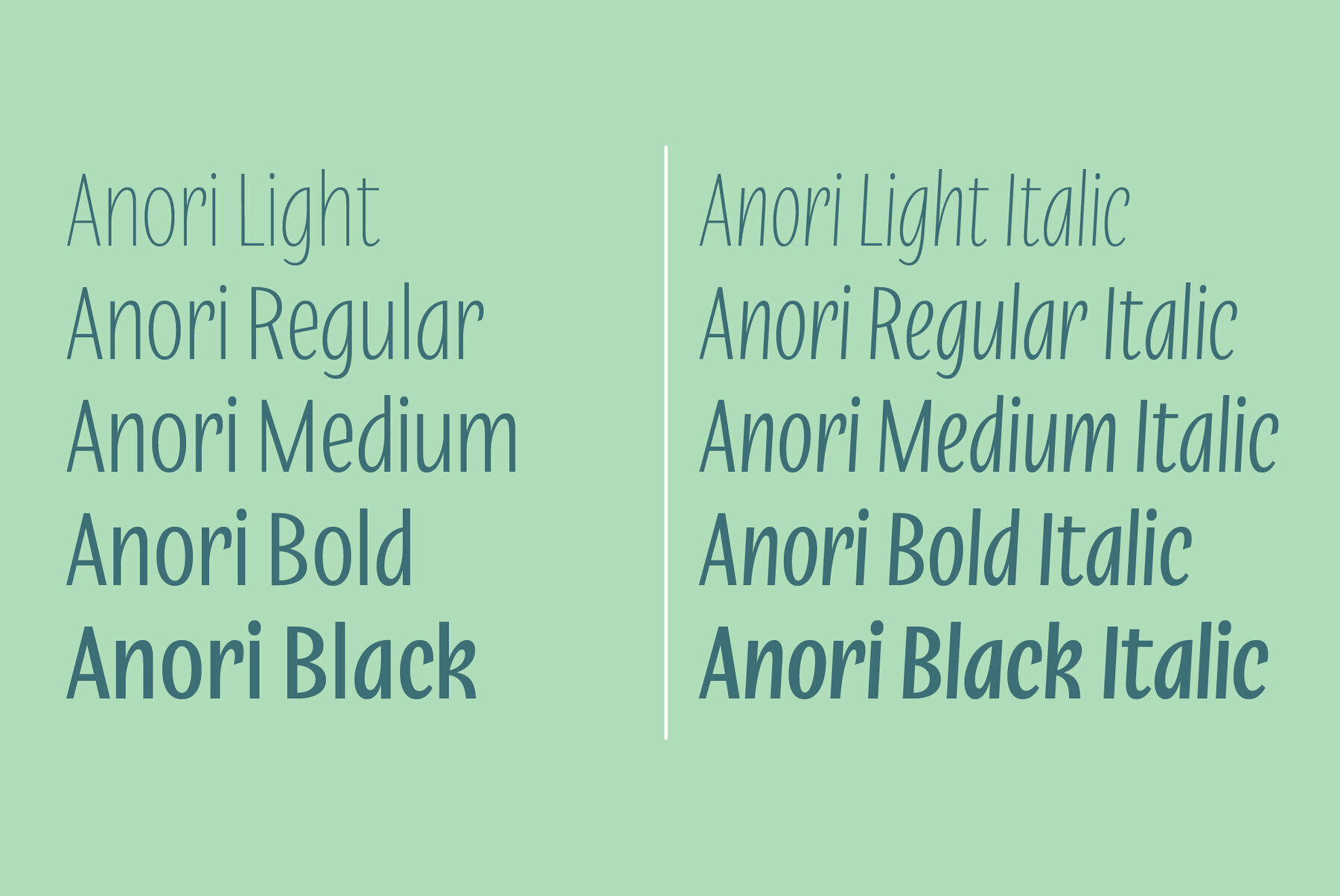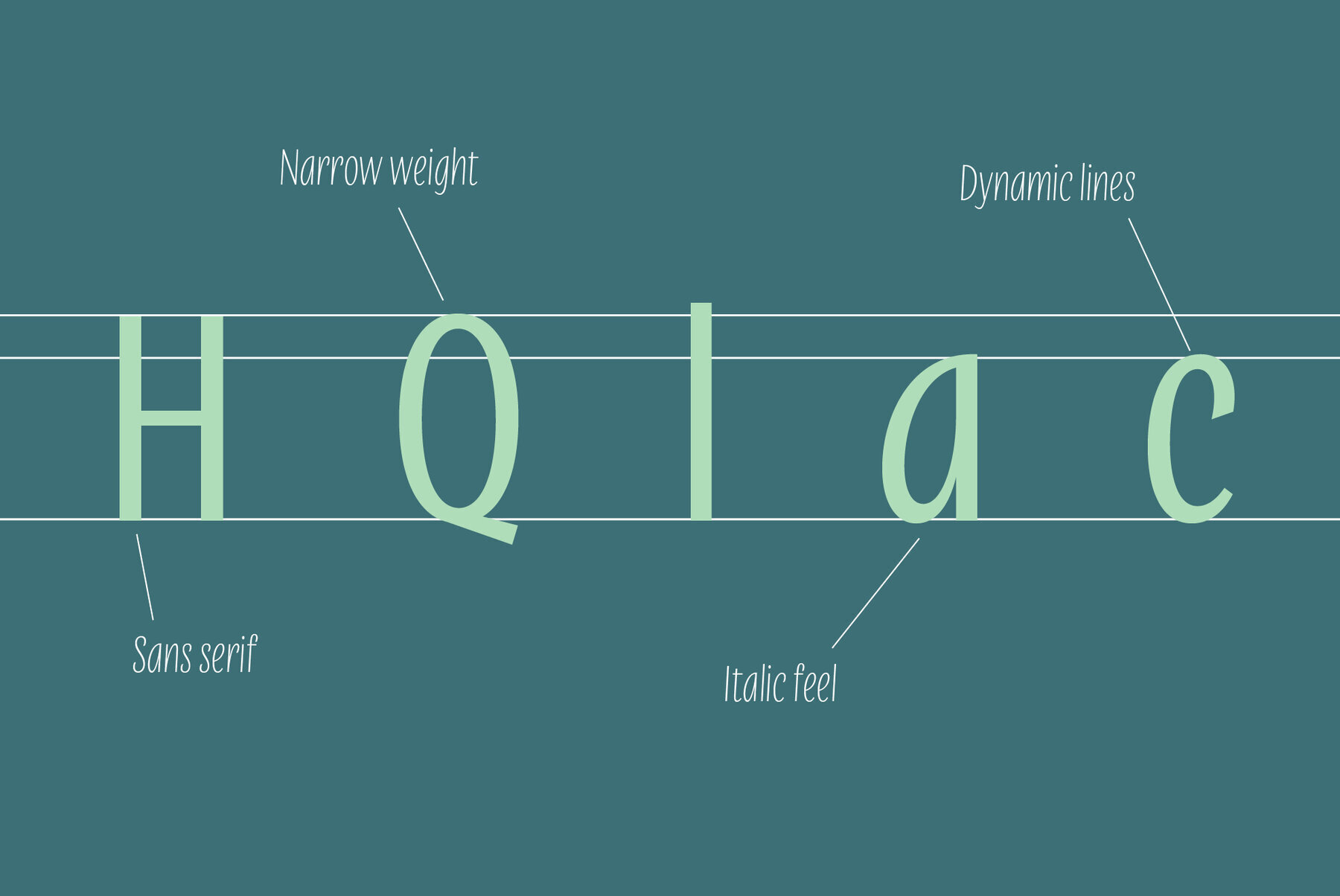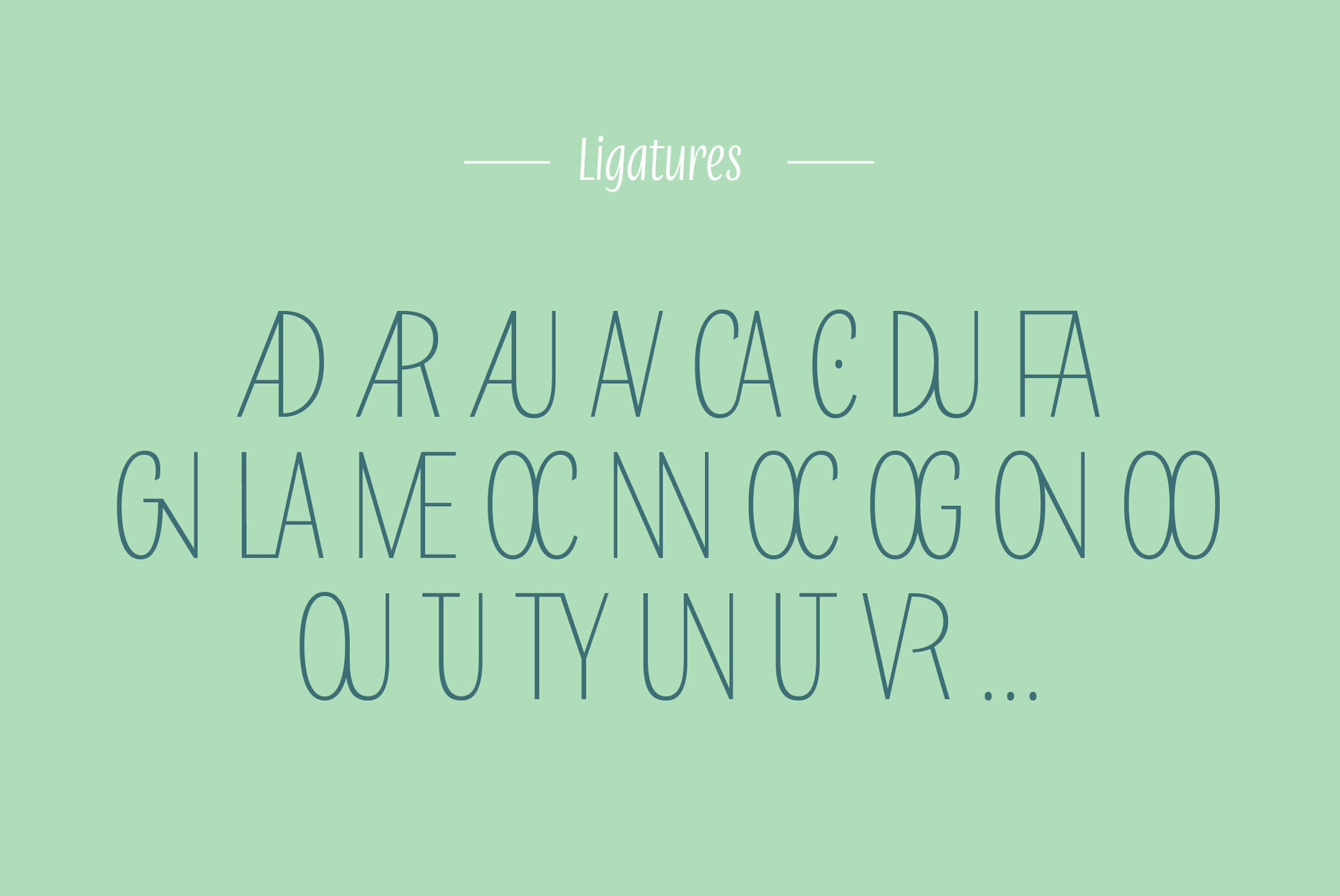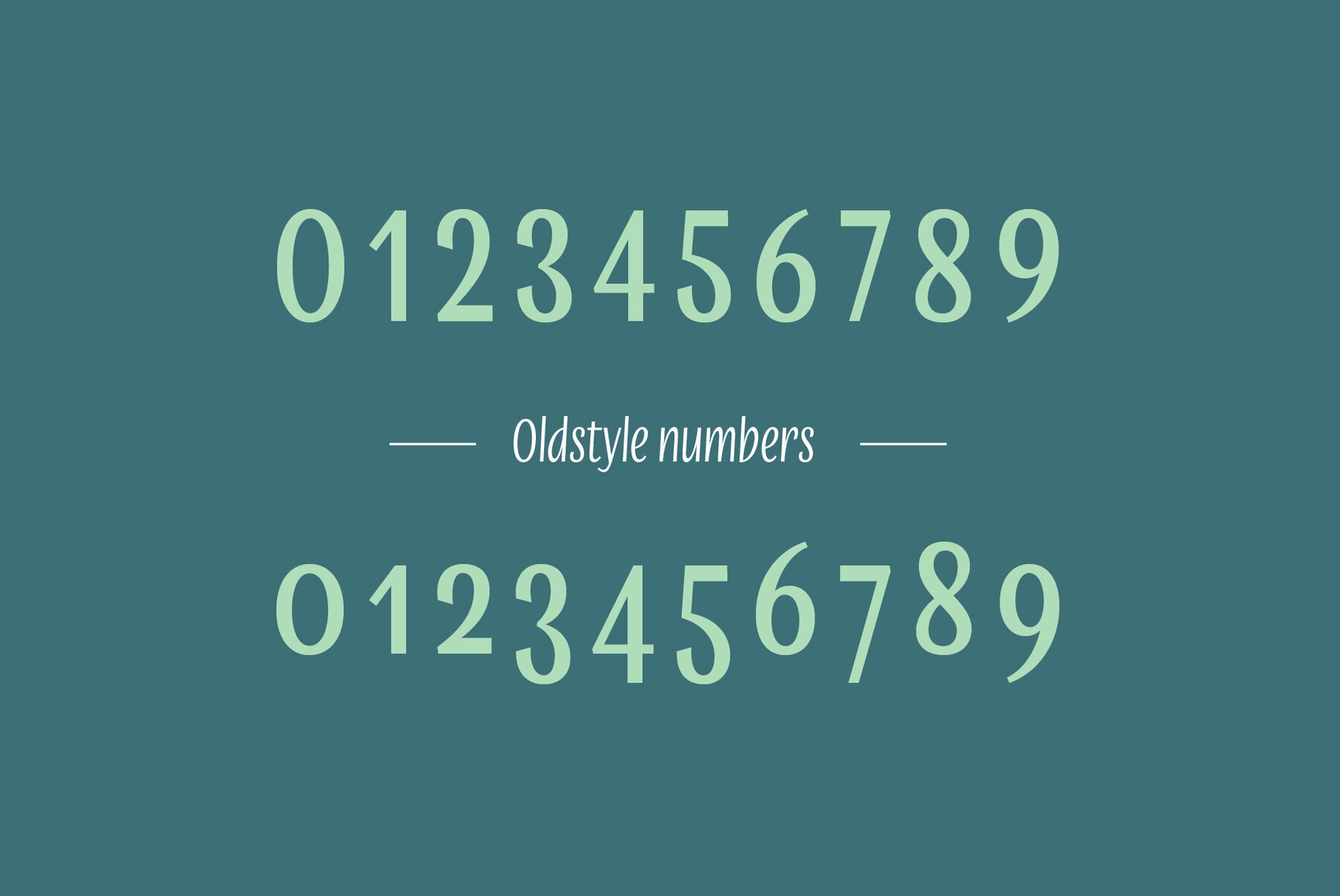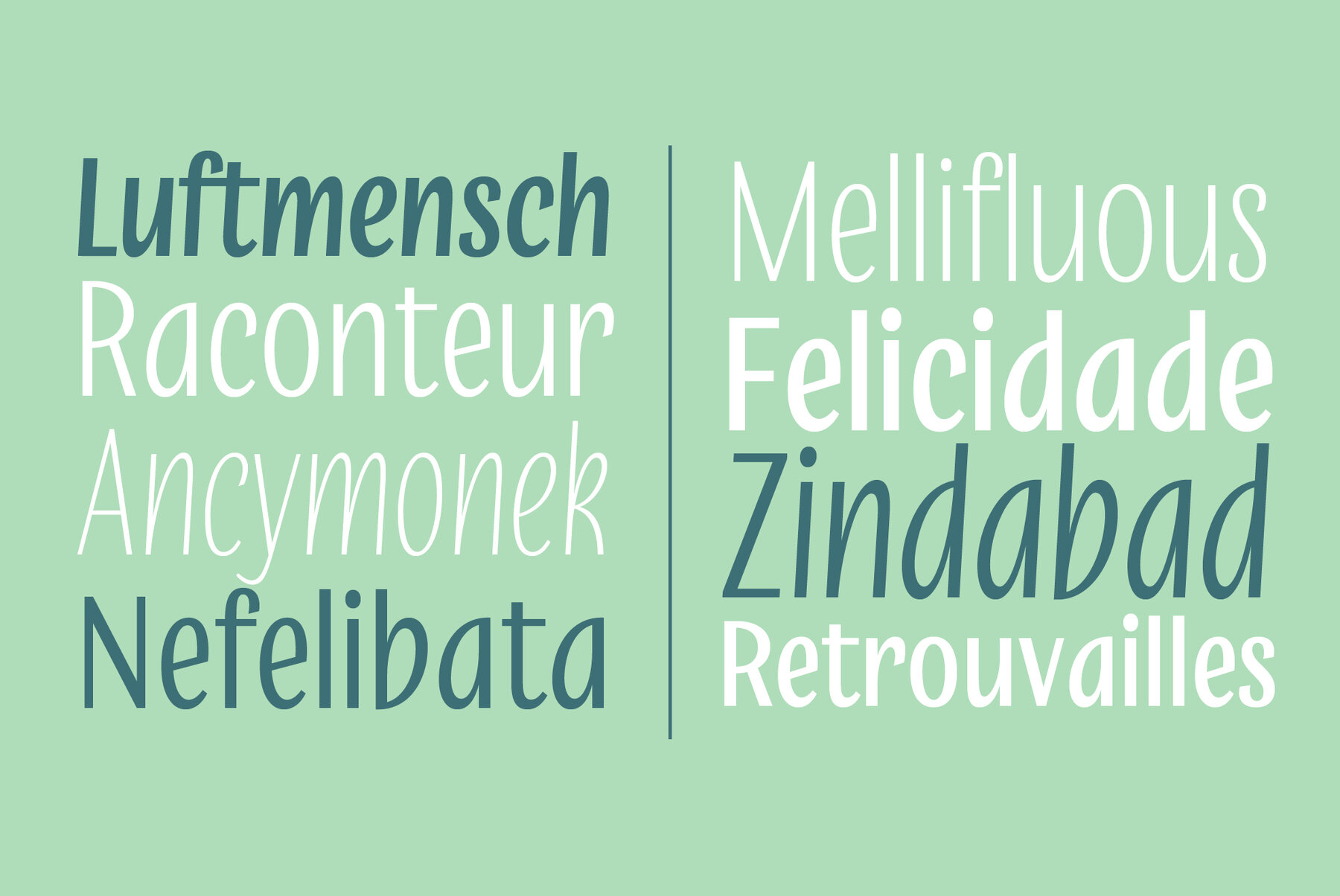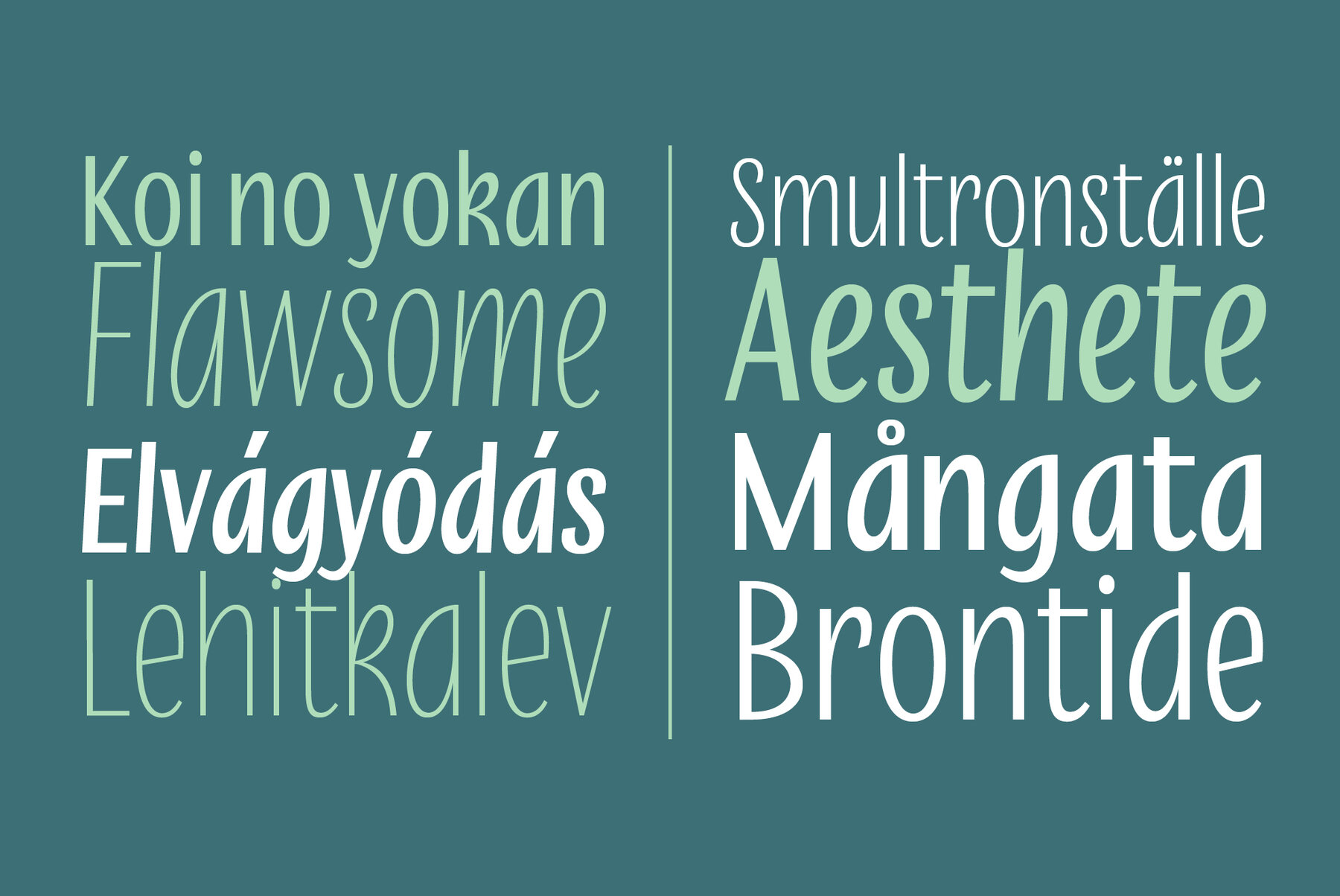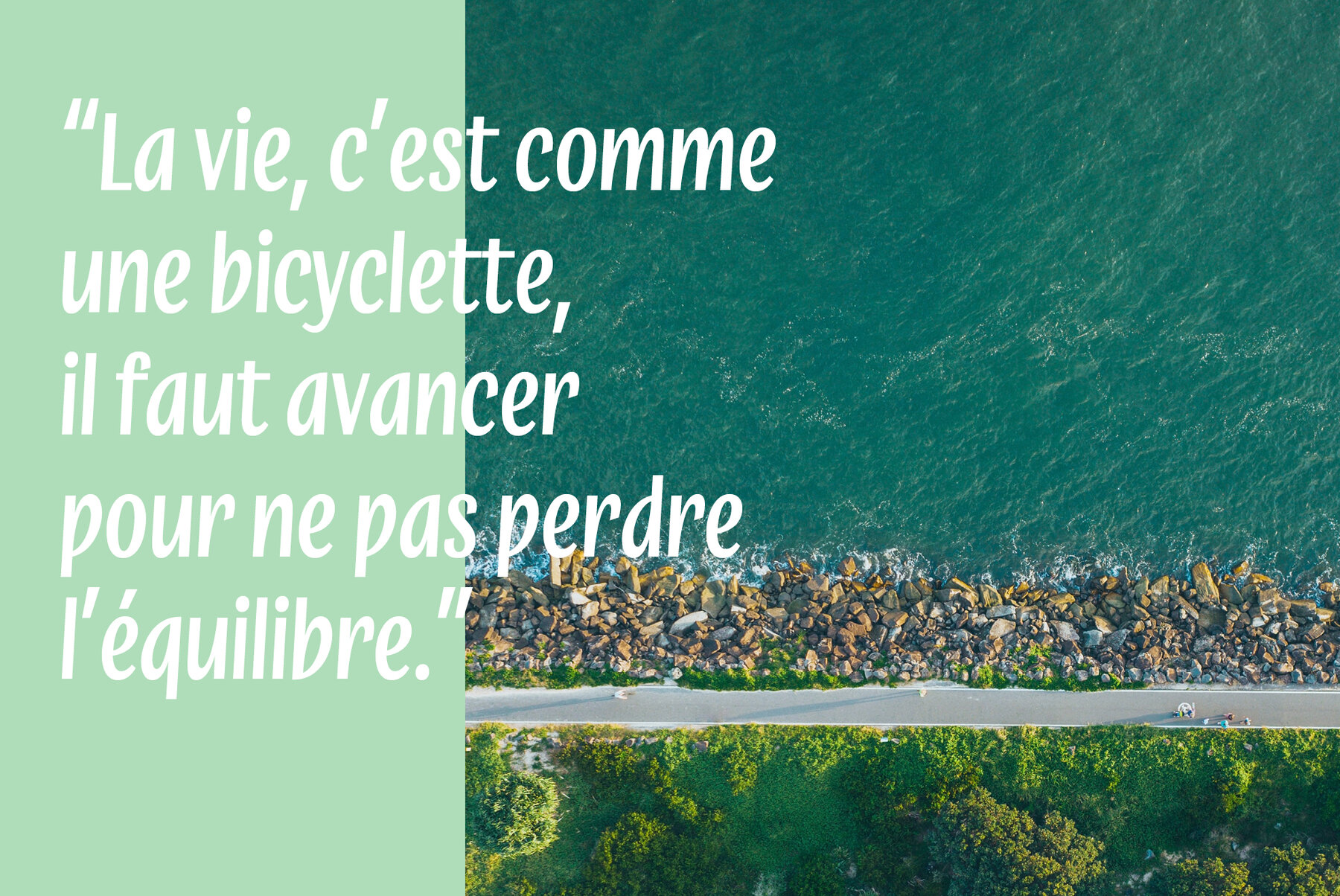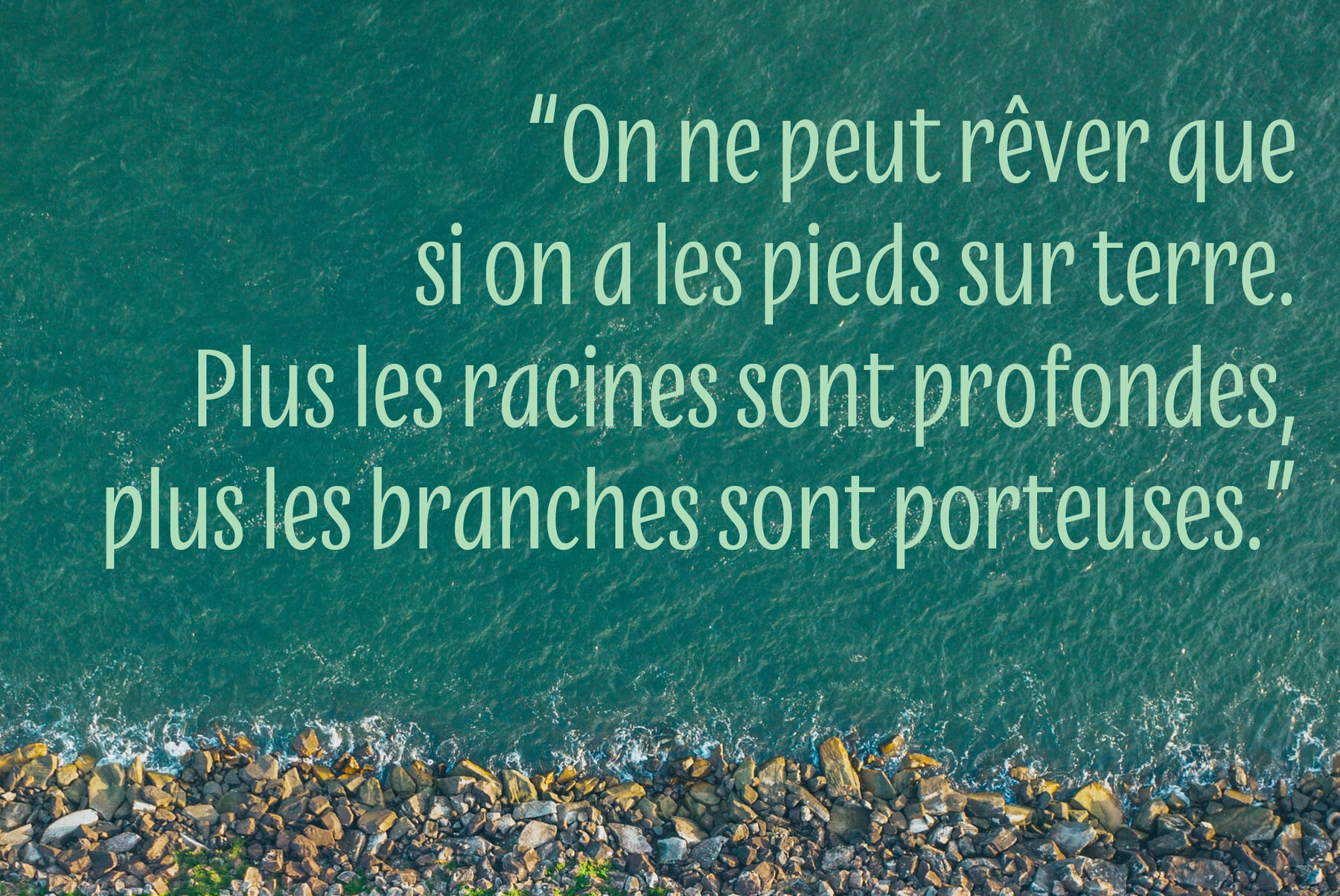
Anori Font
With its playful design and variety of glyphs, Anori is perfect for all your projects. This sans serif font has been inspired by handwriting but with an added edge that will make it unique in any setting!
Anori is available in 10 styles, from light to black, in roman and italic.